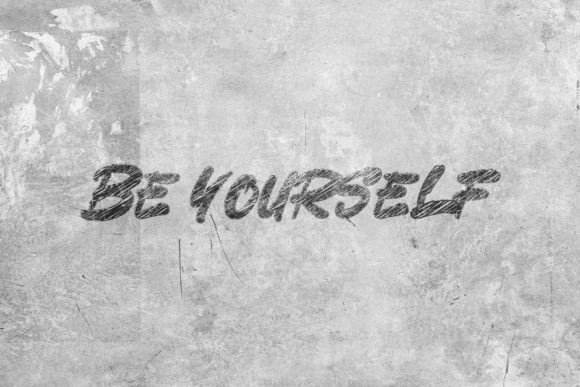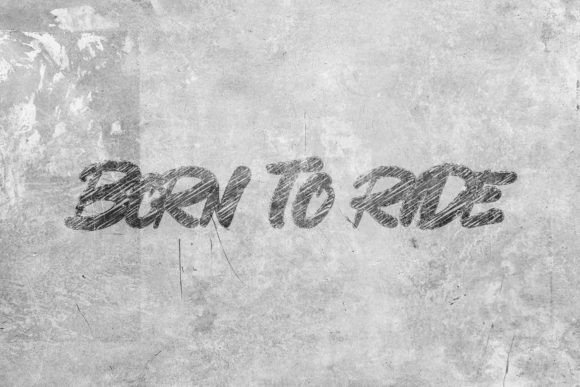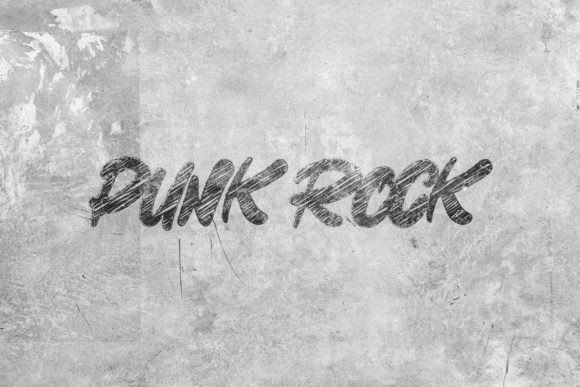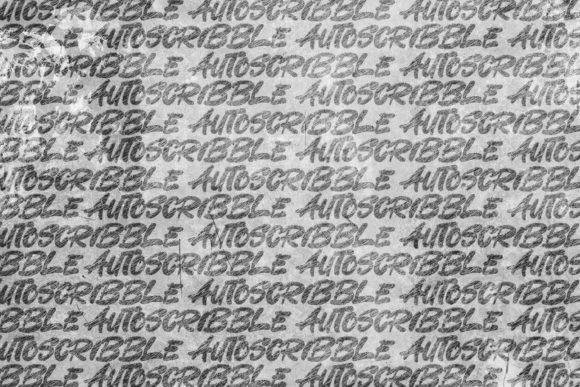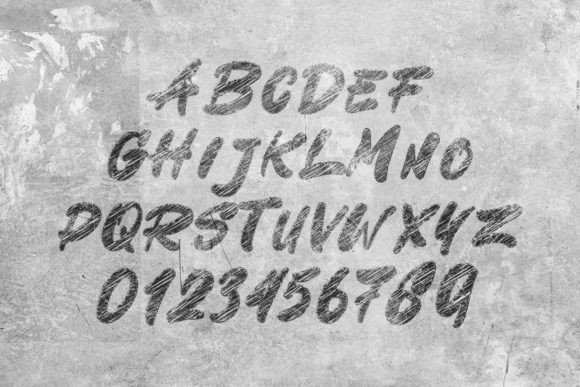
Introducing Autoscribble Font: Elevate Your Designs with a Bold Display Font
Are you tired of using the same old fonts in your designs? Do you want to add a touch of personality and uniqueness to your projects? Look no further than Autoscribble Font, a bold display font that is sure to take your designs to the next level. In this article, we’ll explore the features and benefits of Autoscribble Font, and how you can use it to enhance your creative projects.
What is Autoscribble Font?
Autoscribble Font is a bold display font that is designed to make a statement. With its unique and eye-catching design, it’s perfect for adding a touch of personality to your projects. Whether you’re a designer, crafty DIY enthusiast, or simply someone who loves to create, Autoscribble Font is a versatile and easy-to-use font that can be used in a variety of applications.
Key Features of Autoscribble Font
So, what makes Autoscribble Font so special? Here are just a few of its key features:
- Bold and eye-catching design: Autoscribble Font is designed to grab attention and make a statement. Its bold and unique design makes it perfect for headlines, titles, and other display text.
- Perfect for creative projects: Whether you’re a designer, crafty DIY enthusiast, or simply someone who loves to create, Autoscribble Font is perfect for adding a touch of personality to your projects.
Inspiration for Using Autoscribble Font
Autoscribble Font is a versatile font that can be used in a variety of creative projects. Here are just a few ideas to get you started:
- Signs and posters: Use Autoscribble Font to create eye-catching signs and posters for your business, event, or organization.
- Social media graphics: Add a touch of personality to your social media graphics with Autoscribble Font.
- Logos and branding: Use Autoscribble Font to create a unique and memorable logo for your business or brand.
- Crafting and DIY projects: Add a personal touch to your crafting and DIY projects with Autoscribble Font.
Autoscribble Font is a bold display font that is sure to elevate your designs and add a touch of personality to your projects. With its unique and eye-catching design, versatility, and ease of use, it’s perfect for designers, crafty DIY enthusiasts, and anyone who loves to create. So why wait? Download Autoscribble Font today and start creating stunning designs that will leave a lasting impression.
Whether you’re looking to create eye-catching signs and posters, social media graphics, logos and branding, or crafting and DIY projects, Autoscribble Font is the perfect choice. Its bold and unique design makes it sure to grab attention and make a statement. So add it confidently to your projects, and you will love the results.